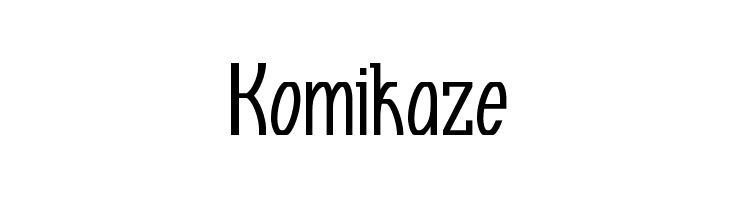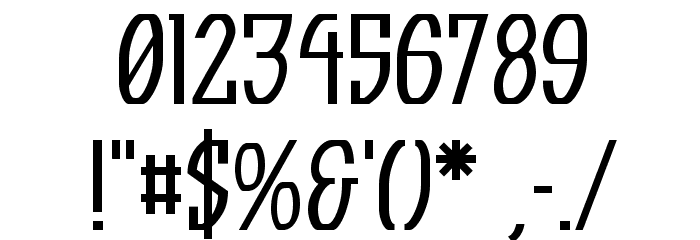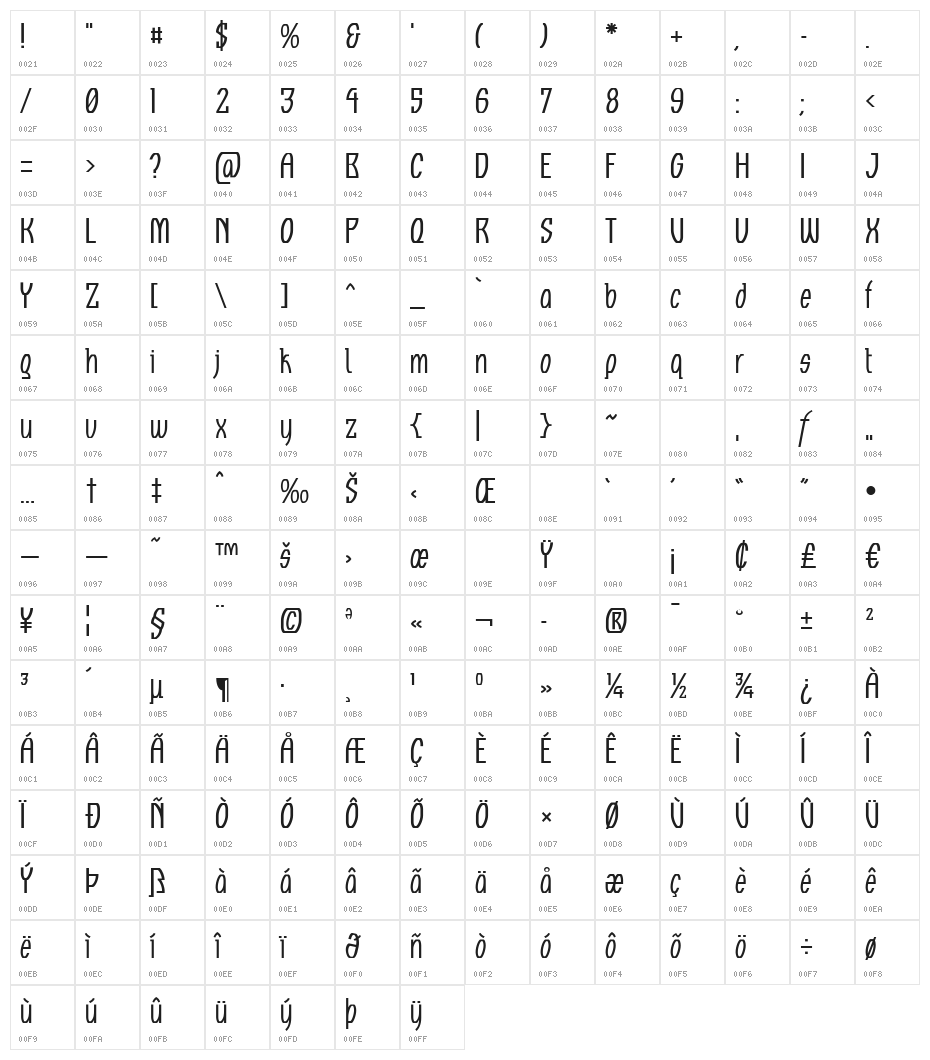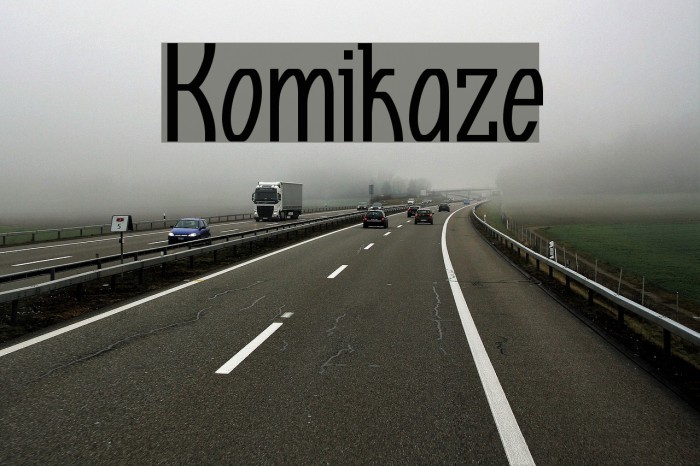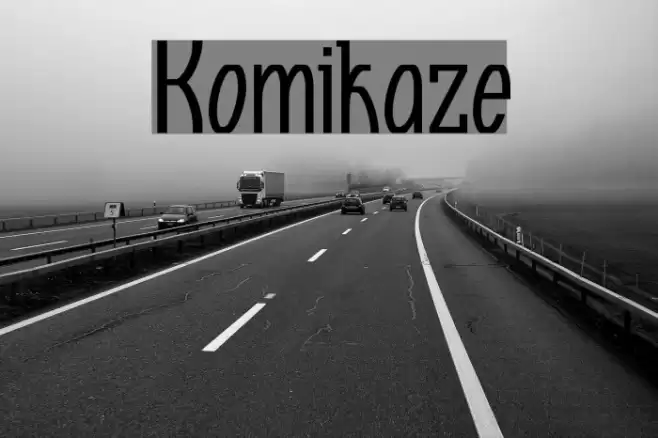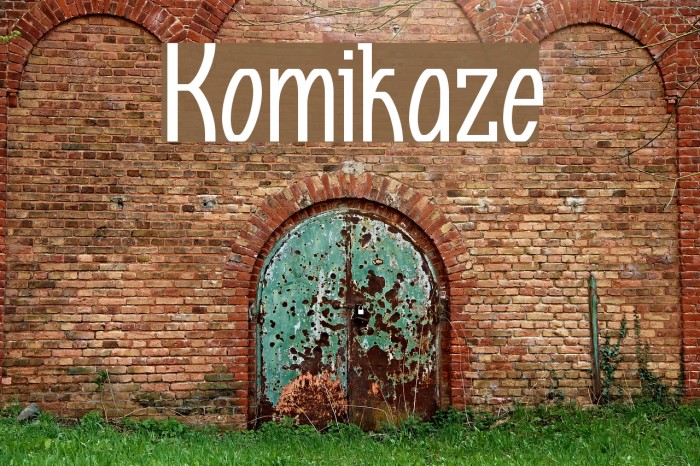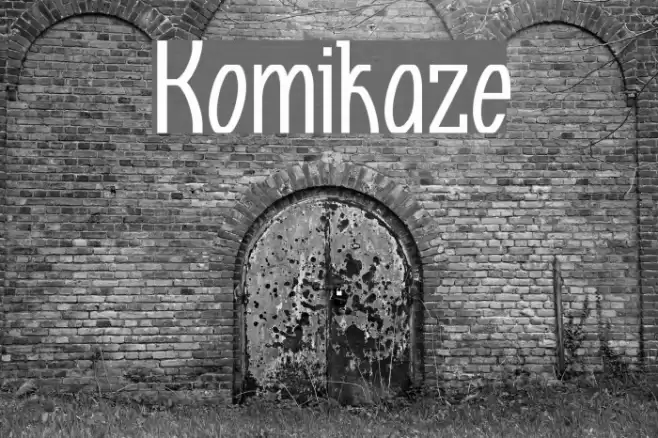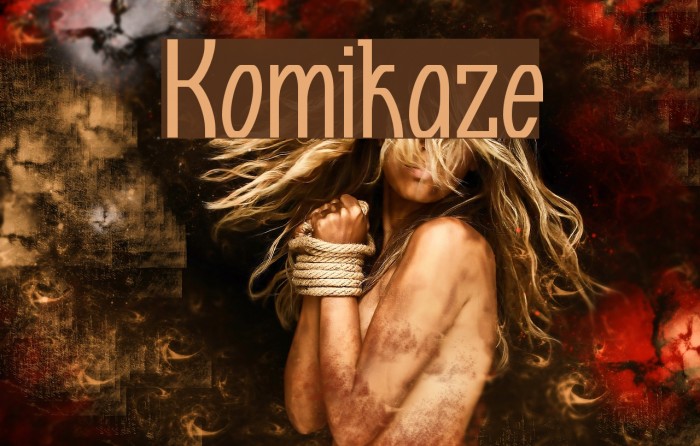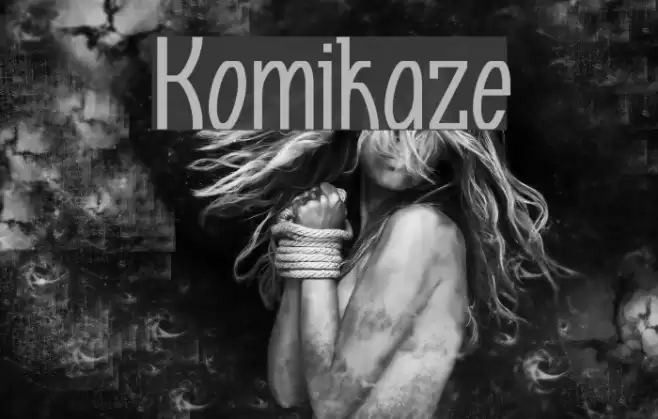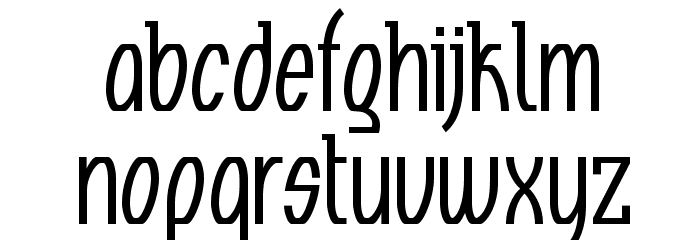
Komikaze Font
Komikaze Description
This font features a playful and bold design, characterized by its rounded edges and slightly condensed letterforms. The uppercase letters have a uniform height, while the lowercase letters maintain a consistent baseline, adding to its readability. The numerals are distinct and easy to differentiate, making them suitable for various applications. Special characters are well-integrated, maintaining the font's cohesive style. The overall appearance is both modern and whimsical, making it ideal for creative projects.
| Overall Style | Modern, Whimsical |
| Proposed Projects | Ideal for comic books, children's books, playful branding, and creative posters. |